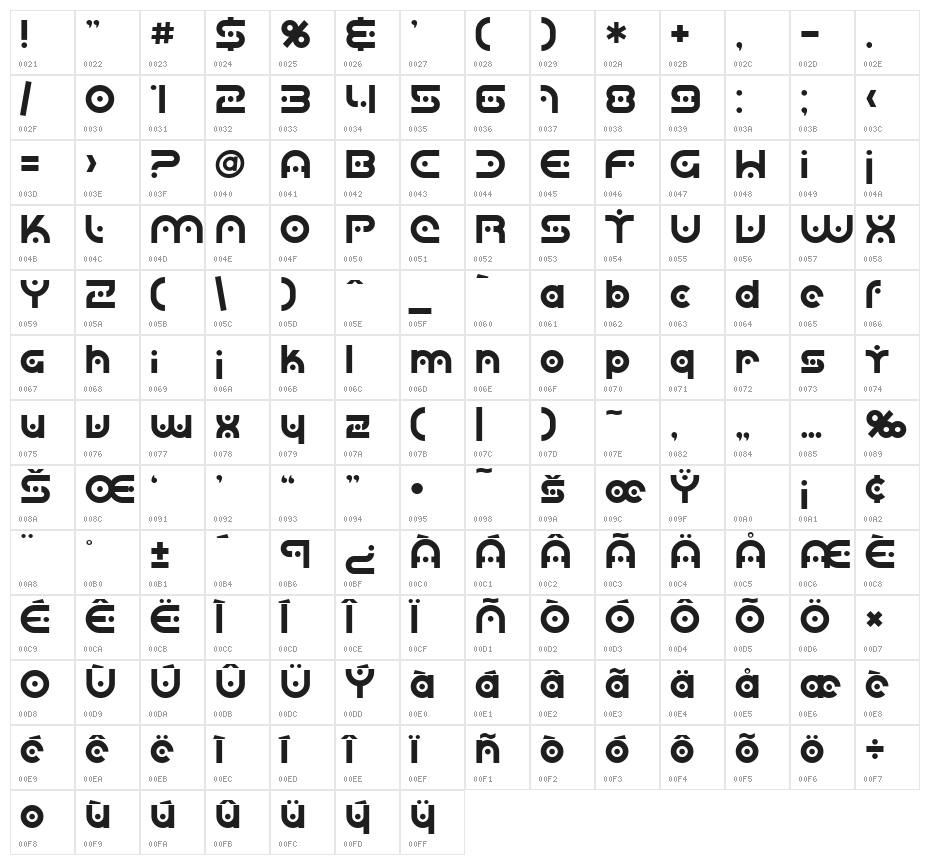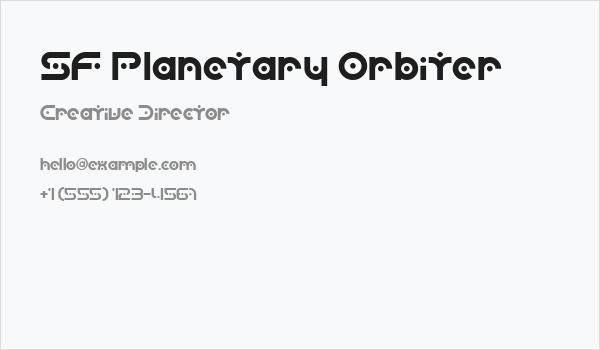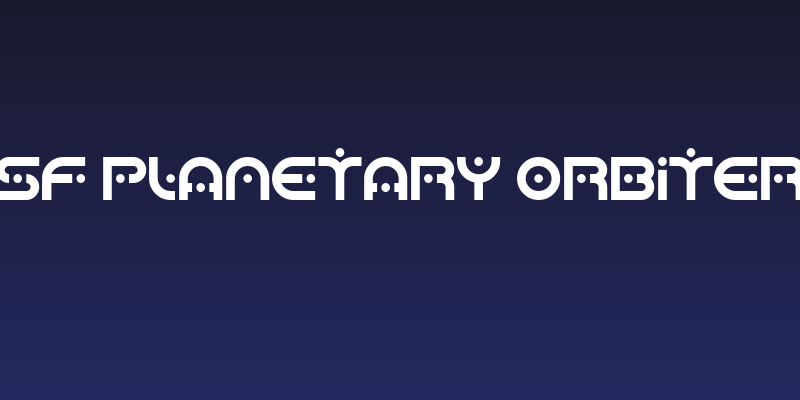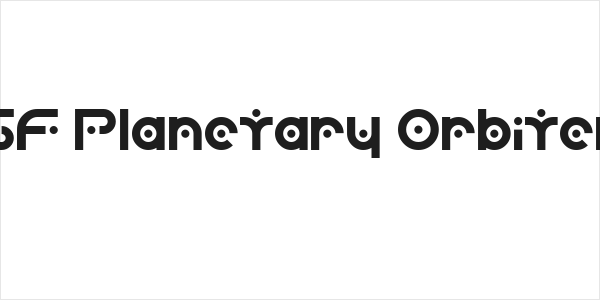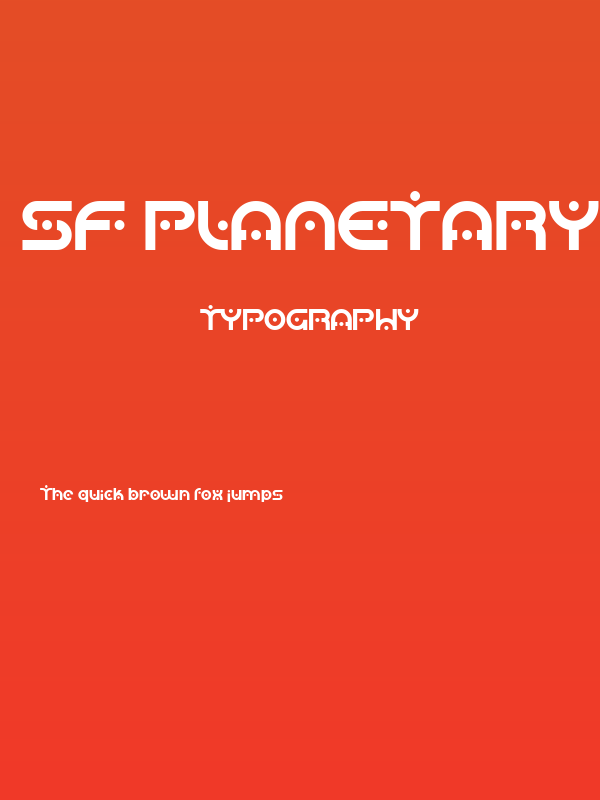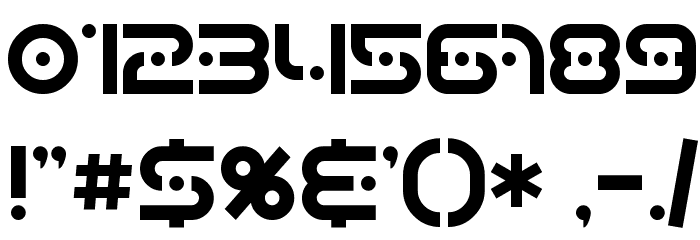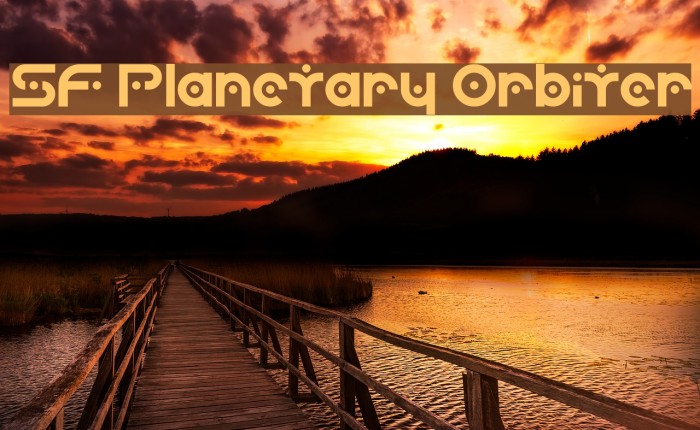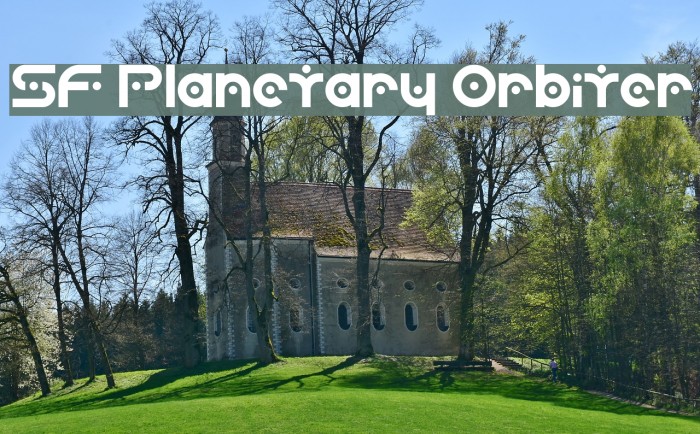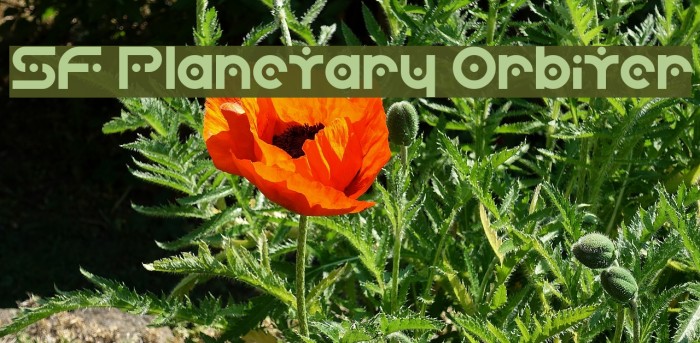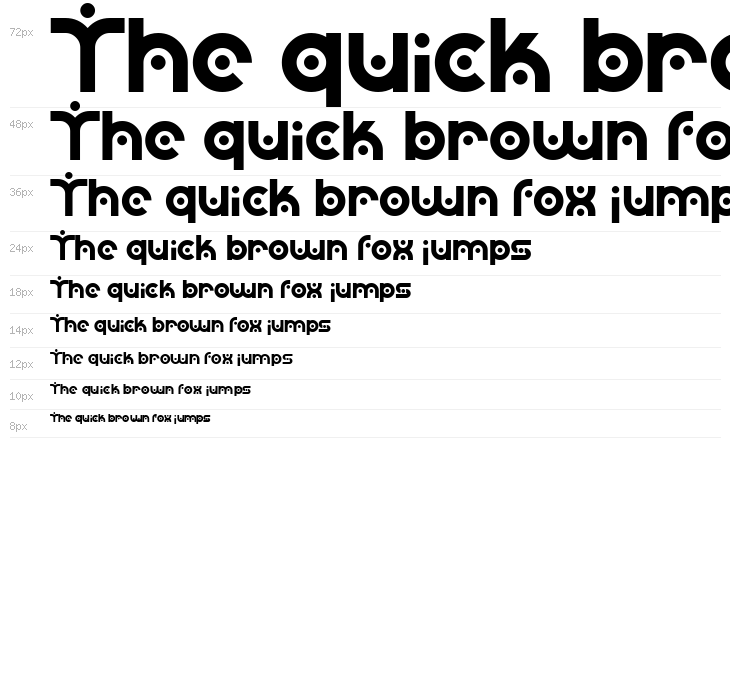
SF Planetary Orbiter Font
SF Planetary Orbiter Description
This font features a futuristic and geometric design, characterized by its bold and rounded letterforms. The characters are constructed with a consistent thickness, creating a uniform appearance. Unique elements such as circular cutouts and extended strokes give it a distinct, space-age feel. The uppercase and lowercase letters maintain a cohesive style, with the lowercase mirroring the uppercase in structure. Numbers and special characters follow the same design principles, ensuring a harmonious look across all glyphs. The font's modern aesthetic makes it suitable for projects that require a contemporary and innovative touch.
| Proposed Projects | Ideal for sci-fi themed designs, technology branding, video game interfaces, and modern advertising. |